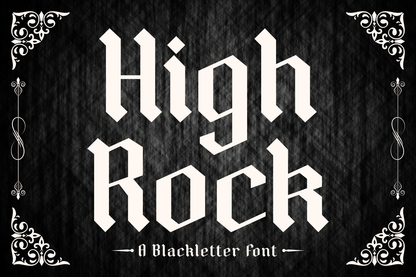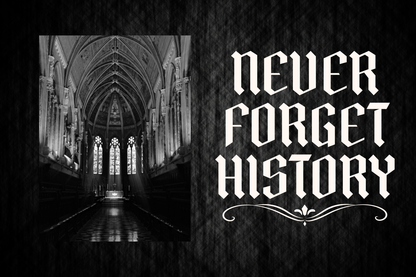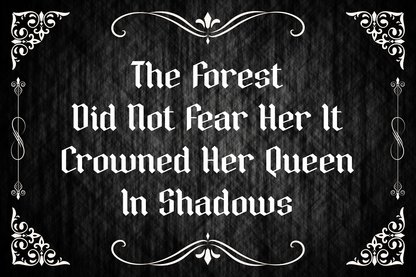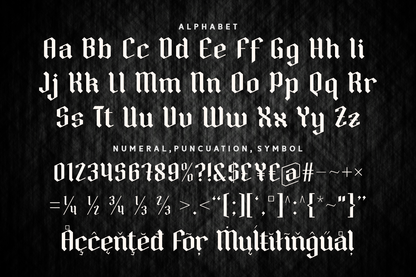
High Rock is a rugged, traditional blackletter font that channels raw energy and rebellious spirit. Perfect for rock band logos, underground zines, or medieval-inspired projects, this typeface stands tall with striking angles and gothic authenticity.